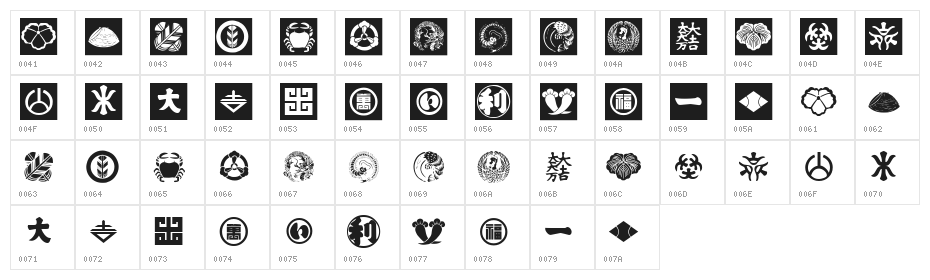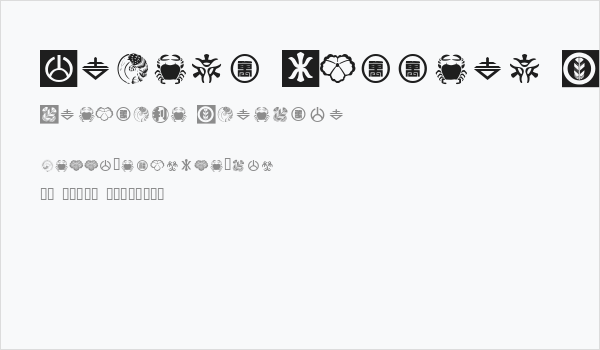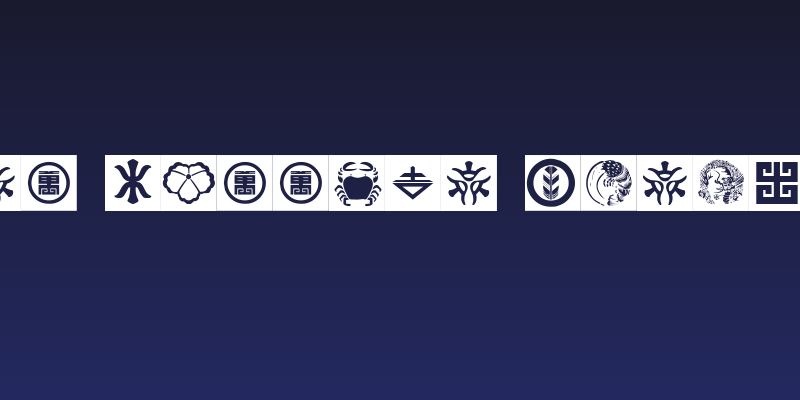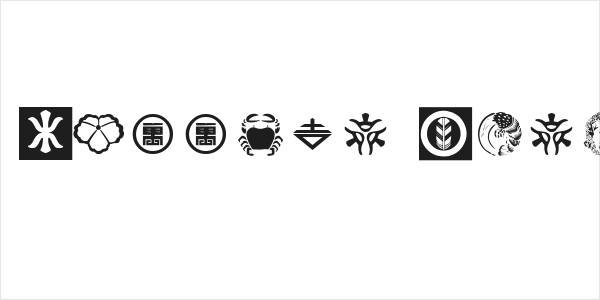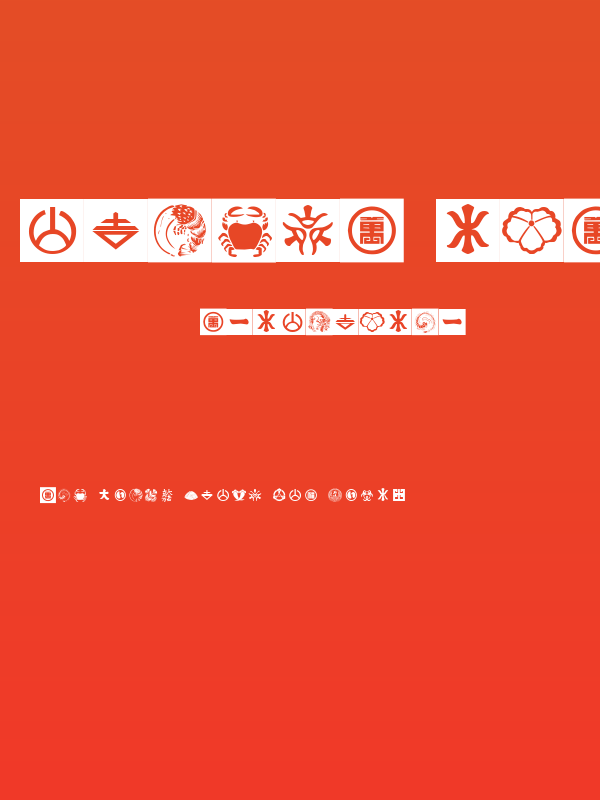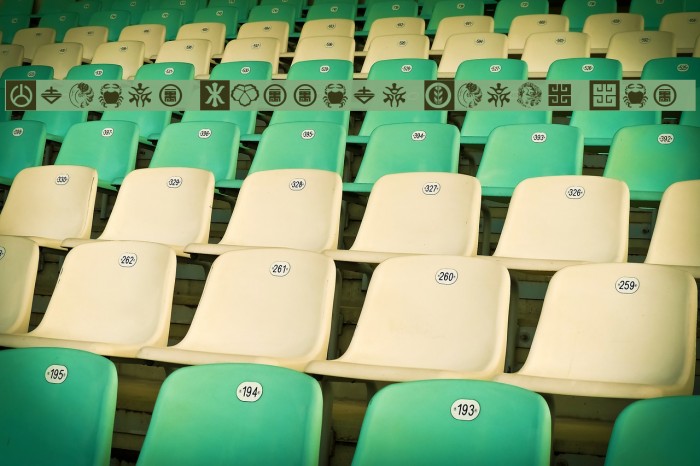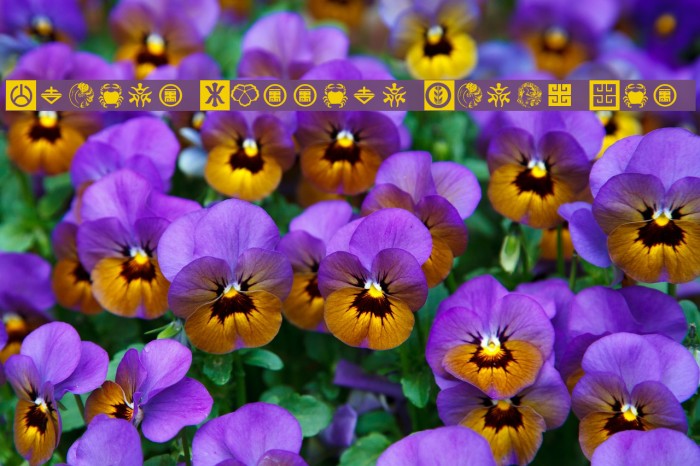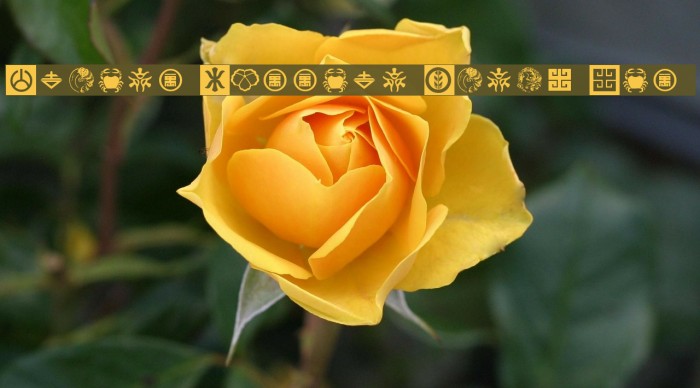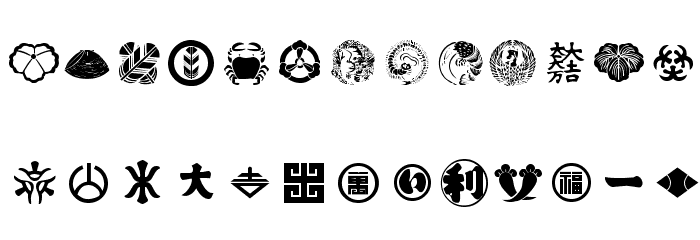
Orient Pattern Dings Set 2 Font
| Cas d'utilisation | Logos, Decorative artwork, Cultural projects |
| Projets proposés | Ideal for use in cultural projects, decorative artwork, branding for Asian-themed products, or as ornamental elements in graphic design. |